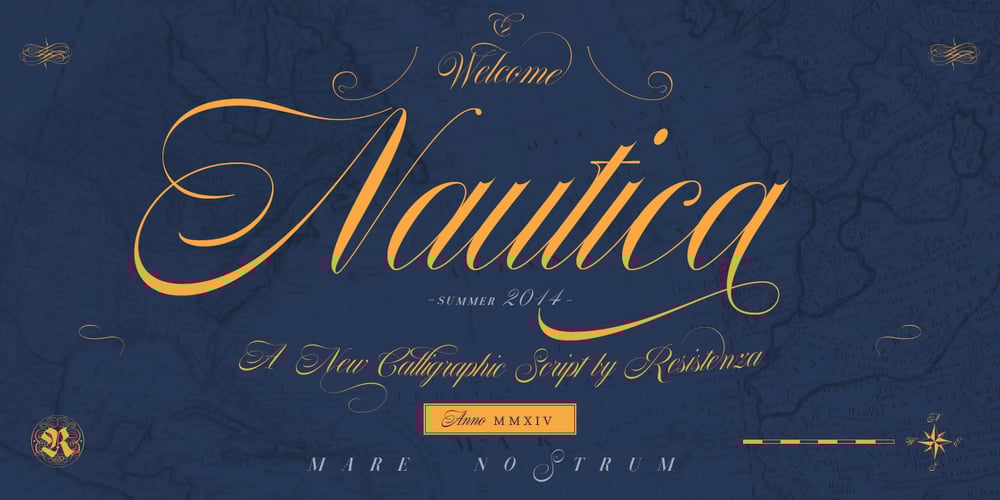
Nautica
Nautica font
Nautica Font Family was designed by Giuseppe Salerno, Paco González and published by Resistenza. Nautica contains 4 styles and family package options. Introducing Nautica, a captivating script typeface inspired by the graceful calligraphy of Copperplate script, traditionally crafted with a pointed nib pen. Rooted in the flowing elegance of hand-drawn strokes and characterized by a delicate balance of thick and thin lines. With its high contrast and strong character, Nautica stands out as a truly original typeface, boasting over 1000 glyphs and comprehensive language support.Crafted with meticulous attention to detail, Nautica offers a plethora of professional typographic features accessible through OpenType technology. In addition to ligatures and swashes inspired by the fluidity of brush pen strokes, Nautica presents a diverse array of stylistic elements, including contextual alternates and stylistic sets. These features empower designers to unleash their creativity and craft unique, visually captivating compositions.Available in three weights—regular, medium, and bold—Nautica provides versatility across various design projects. Whether enhancing branding, packaging, invitations, or editorial layouts, Nautica elevates every design with its timeless allure and refined aesthetics. Moreover, Nautica includes a charming collection of icons and knots, offering creative possibilities to enhance graphics and illustrations.Furthermore, Nautica’s availability as a webfont extends its utility to digital design endeavours, including websites and online branding initiatives. Whether gracing the pages of a magazine spread or adorning a website interface, Nautica lends a touch of class and elegance to every design layout. More About Opentype Features: https://bit.ly/opentype-rsz